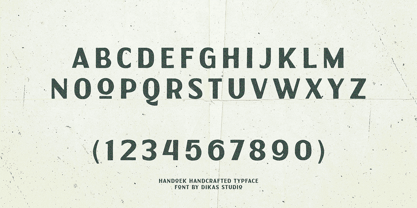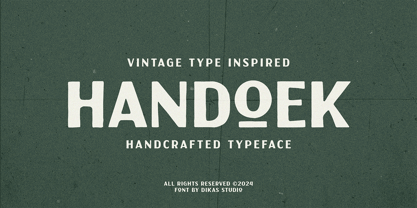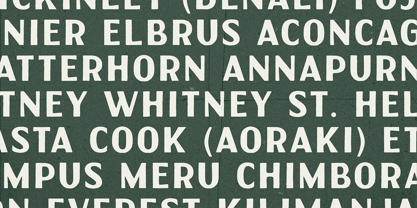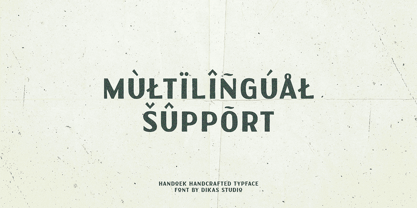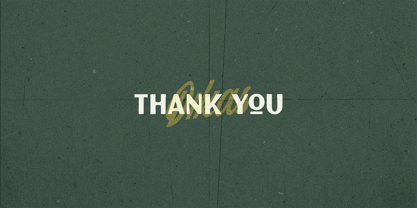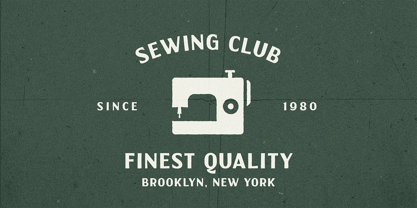
Handoek
von Dikas Studio
Die Schriftfamilie Handoek wurde von Andika Setiawan entworfen und von Dikas Studio veröffentlicht. Handoek enthält 1 Stile.
Handoek is a sans-serif font with a vintage soul, crafted with a hand-drawn, rough texture that exudes authenticity. Perfect for capturing the nostalgic essence of 70s posters, badge, label or logos, this font adds character and warmth to your retro-inspired designs.
Designer: Andika Setiawan
Herausgeber: Dikas Studio
Foundry: Dikas Studio